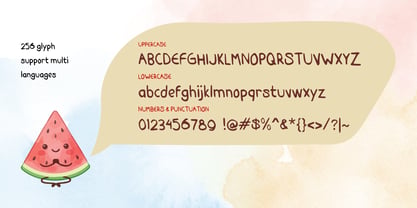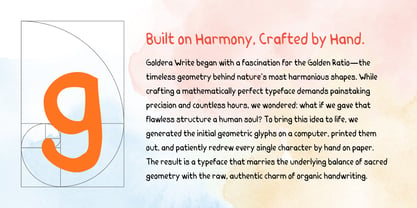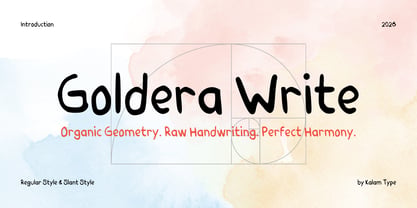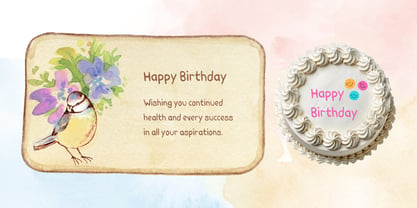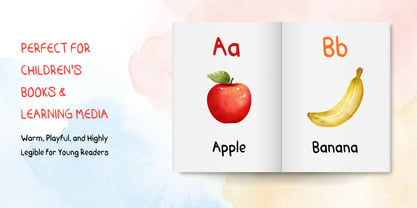
Goldera Write
The Goldera Write Font Family was designed by Wahyu Eka Prasetya, Moch Zamroni and published by Kalam. Goldera Write contains 2 styles and family package options. More about this family
What happens when mathematical harmony meets the warm, raw touch of the human hand?
Goldera Write is a unique handwritten display font built on the Golden Ratio grid, crafted with a raw, organic feel. By pairing sacred geometry proportions with intentionally imperfect lines, it delivers a distinctively artistic look while remaining exceptionally readable.
Key Features & Specs:
• 2 Styles: Regular & Slant for versatile layout options.
• 256 Glyphs: Uppercase, lowercase, numbers, punctuation, and symbols.
• Multi-Language Support: Ready for international Latin-based languages.
• High Legibility: Balanced structure ideal for both long text and headlines.
Best Suited For:
• Children's Media & Books: Storybooks, learning cards, and educational apps.
• Comics & Graphics: Dialogue, captions, indie comic lettering, and posters.
• Crafts & Branding: Craft projects, packaging, cards, and playful brand identities.